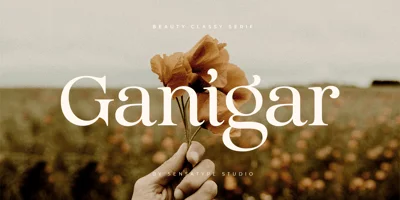
Ganigar Style Font
Ganigar Style Font is perfect for exotic fashion brands, mystical cultural festivals, international travel marketing, ethnic art galleries, spiritual retreat centers, ancient wisdom publications, multicultural event promotions, and authentic global heritage campaigns.
This font is exciting because it embodies mystical cultural heritage with exotic sophistication and ancient wisdom elegance. Ganigar Style Font features unique letterforms with traditional cultural inspiration that evoke the richness of distant lands and ancestral knowledge, making it ideal for projects that require authentic cultural character and spiritual depth.
The Ganigar Style Font family includes regular, ornate, condensed, and decorative variants, along with cultural alternates and traditional ligatures that enhance its mystical character. Each weight maintains the font's exotic aesthetic while providing different levels of cultural expression for various international and spiritual design applications.
Whether you're developing authentic cultural brands, creating compelling spiritual materials, or designing mystical heritage campaigns, Ganigar Style Font delivers exceptional authenticity and exotic appeal. Its distinctive cultural style makes it an excellent choice for designers seeking to add genuine international wisdom and spiritual sophistication to their projects. The font's versatility extends from cultural festival signage to spiritual retreat branding, ensuring consistent performance across all mystical applications. With its respectfully crafted letterforms and cultural proportions, this typeface provides professional results that honor ancient traditions and establish powerful spiritual presence with its unmistakable exotic character and timeless cultural elegance.